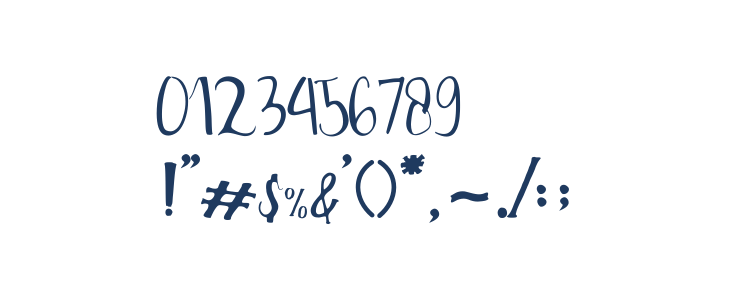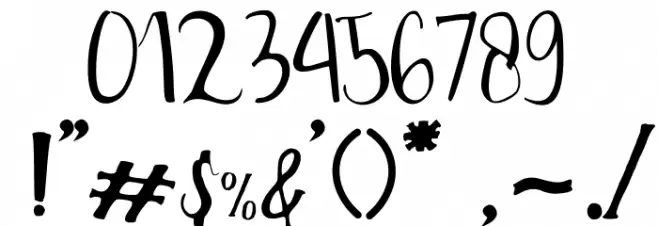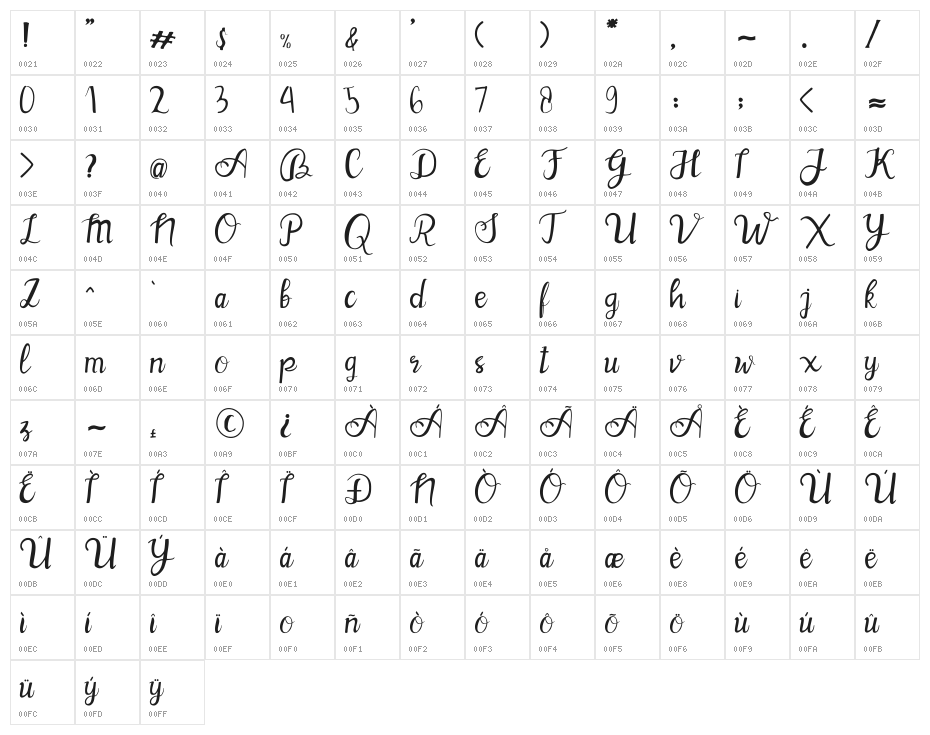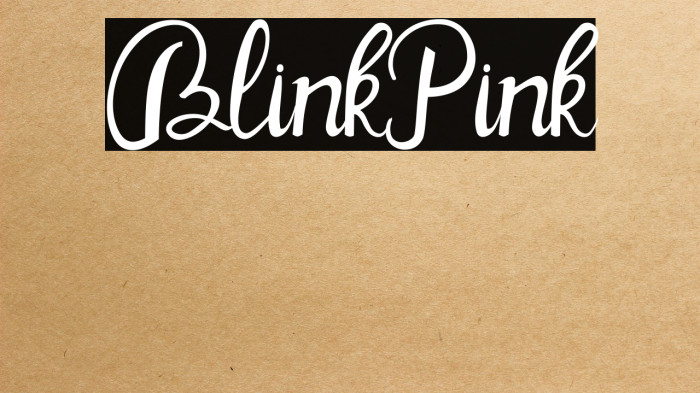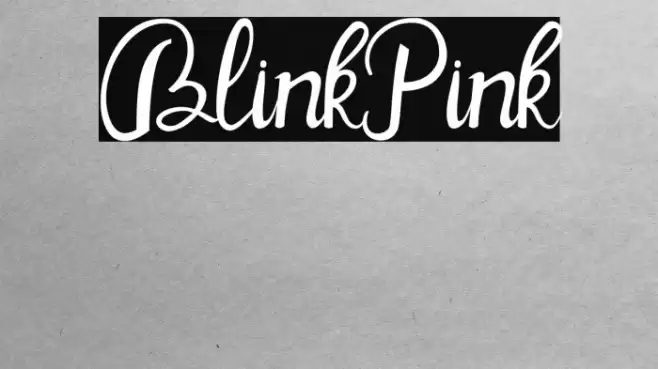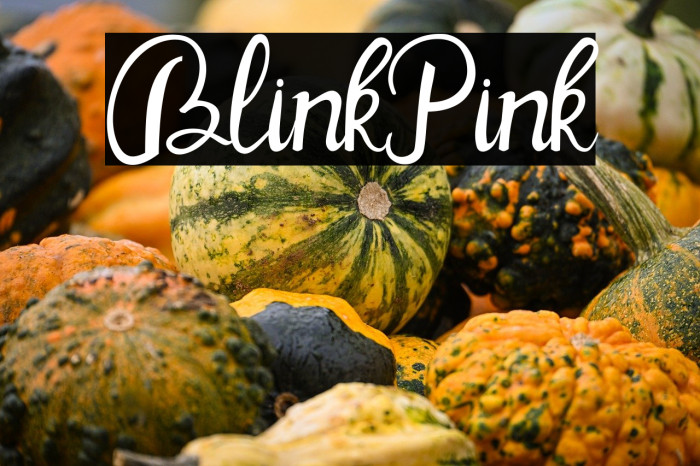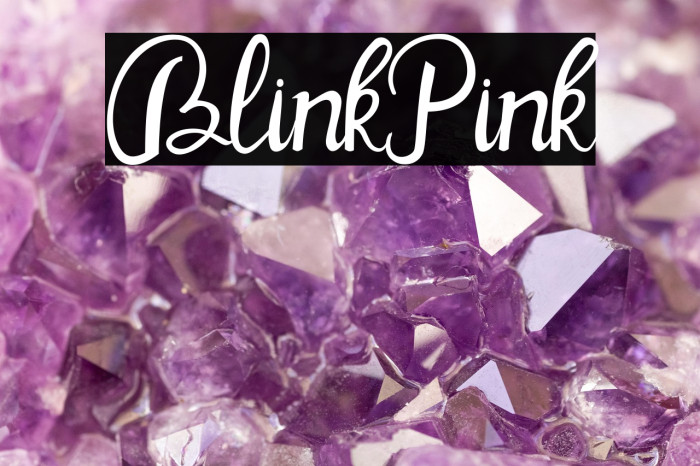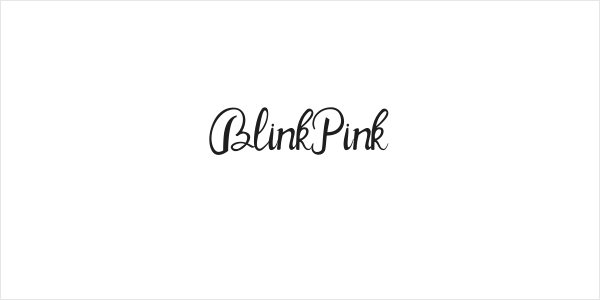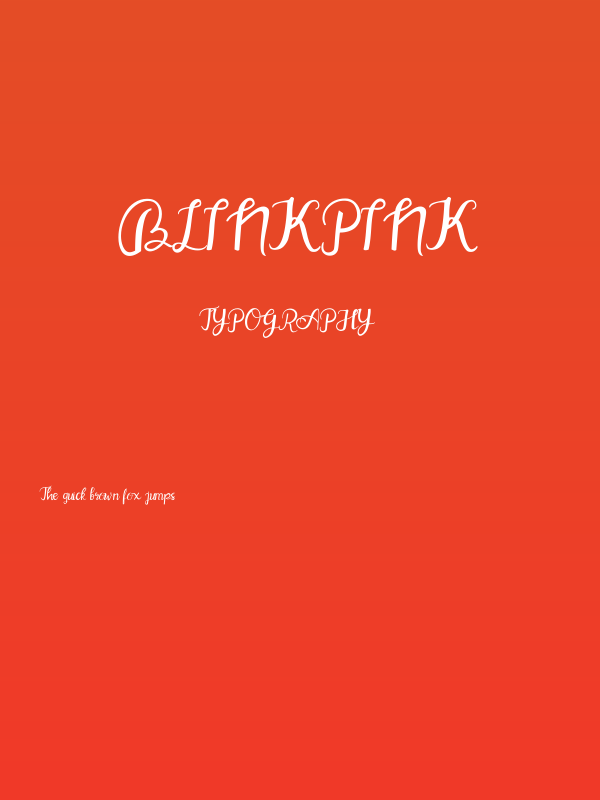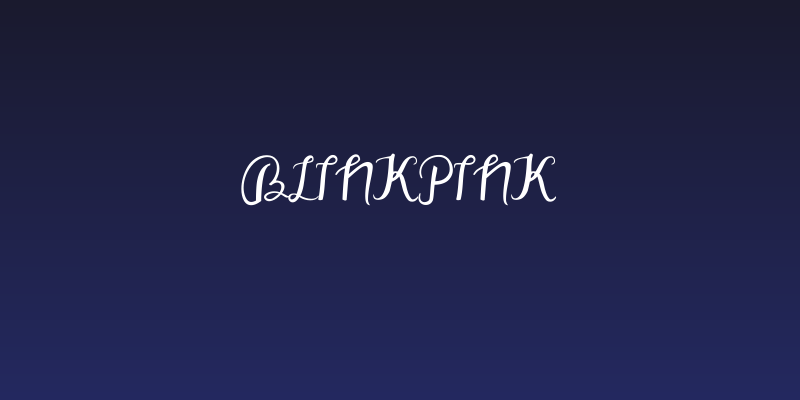
BlinkPink Font
BlinkPink Description
This elegant script font features a flowing, cursive style with a playful and artistic flair. The uppercase letters are characterized by their sweeping curves and loops, giving them a sense of movement and grace. The lowercase letters maintain a consistent style, with smooth connections and a slightly more compact form. The numerals are distinct and easy to read, with a slight slant that complements the overall cursive theme. Special characters are creatively designed, adding a touch of whimsy to the font. The overall appearance is both sophisticated and approachable, making it suitable for a variety of creative projects.